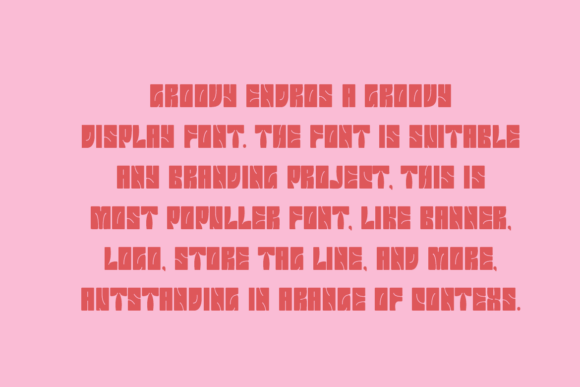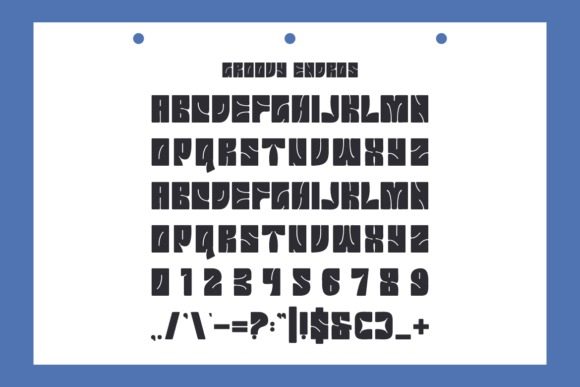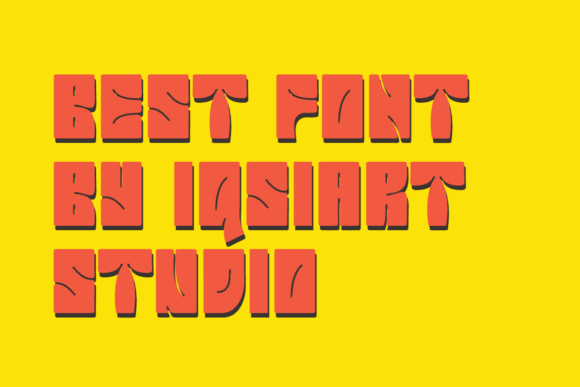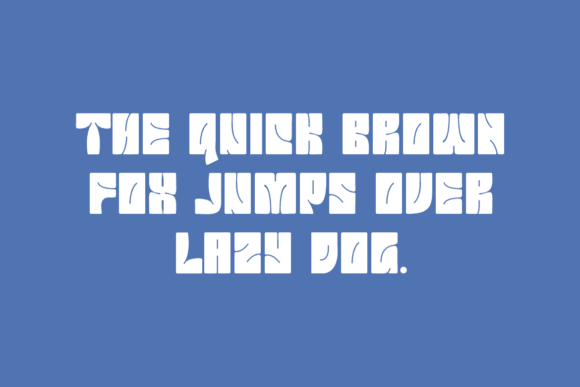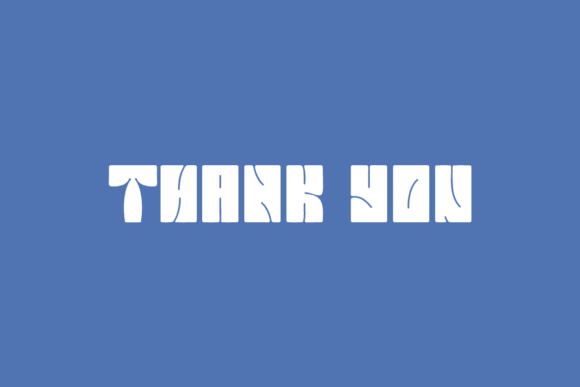
Get Ready to Groove: Unlock the Power of Groovy Endros Font
Have you ever stared at a blank design canvas, feeling like your creativity is stuck in neutral? Maybe you’re craving a style that’s bold, playful, and undeniably retro. You’re not alone! Designers everywhere have been searching for the perfect font to capture the essence of the 1970s – and we’ve got the solution.
Enter Groovy Endros Font, a dynamic and eye-catching typeface that’s perfect for bringing a fun and nostalgic vibe to your designs. With its chunky, curvy letterforms and funky grooves, this font is sure to make a statement. Whether you’re working on posters, album covers, branding, or t-shirt designs, Groovy Endros Font is the ultimate tool for adding a bold, dynamic energy to your creations.
Groovy Endros Font Key Features
- Font Family: Groovy Endros
- Unique Characteristics: Groovy Endros features a unique blend of futuristic and organic elements, with a focus on bold lines and vibrant colors.
Groovy Endros Font Review
I recently had the chance to work with the Groovy Endros Font and I must say, it’s a unique and eye-catching addition to any design project. ✨ Here are some things that worked well for me:
- Unique letterforms: The Groovy Endros Font has some really interesting and quirky letterforms that add a lot of character to any text.
- Versatility: This font can be used for a variety of projects, from posters to business cards, and it looks great in both bold and playful contexts.
- Limited language support: The font is currently only available in English, which might be a drawback for designers working with non-English language projects.
- Some readability issues: At very small font sizes, some of the letterforms can become difficult to read due to their intricate details.
Overall, I would say that the Groovy Endros Font is a great addition to any designer’s toolkit, but it’s not without its limitations. With some careful consideration and planning, it can be a fantastic choice for a wide range of projects.
The Groovy Endros Font is perfect for creating eye-catching headlines and titles. Use it to add a touch of elegance and sophistication to your designs. Some common use cases include:
- Business cards and stationery
- Web design and digital marketing materials
- Print ads and promotional materials
Alternatives to Groovy Endros Font
Great Vibes is a modern, elegant script font perfect for designers who want a stylish and sophisticated look. It’s ideal for use in branding, advertising, and editorial design where a touch of whimsy is needed. Great Vibes has a similar feel to Groovy Endros Font but is more refined and less cluttered.
Alex Brush is a beautiful, handwritten font that evokes a sense of elegance and sophistication. It’s suitable for designers who want to create a unique and personal brand identity. While it shares some similarities with Groovy Endros Font in terms of its flowing lines and organic feel, Alex Brush has a more refined and polished appearance.
Lato is a clean, modern sans-serif font that’s perfect for designers who want a professional and sleek look. It’s ideal for use in corporate branding, web design, and editorial design where a clear and concise message is needed. Lato has a more minimalist feel compared to Groovy Endros Font, making it a great choice for designers who want a clean and uncluttered look.
Playfair Display is an elegant, luxurious serif font that’s perfect for designers who want to create a high-end and sophisticated look. It’s suitable for use in branding, advertising, and editorial design where a touch of luxury is needed. Playfair Display has a more formal and refined appearance compared to Groovy Endros Font, making it a great choice for designers who want to convey a sense of sophistication and elegance.